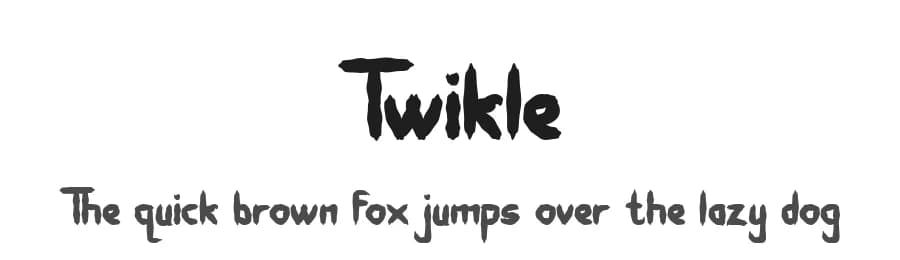
About Twikle Font
Twikel is a font that overlies dirty designs, this is illustrated through the tectures on each letter and made in such detail. Focus of this font itself is in the interesting Upercas and the lowercase is only a complement, but it is made with a consistent form.
Twikle Font is very suitable to use logo design with the theme of adventure, quotes, posters, all symbols with the impression of horror and semi-horror, web banner, and other.
Twikle Font